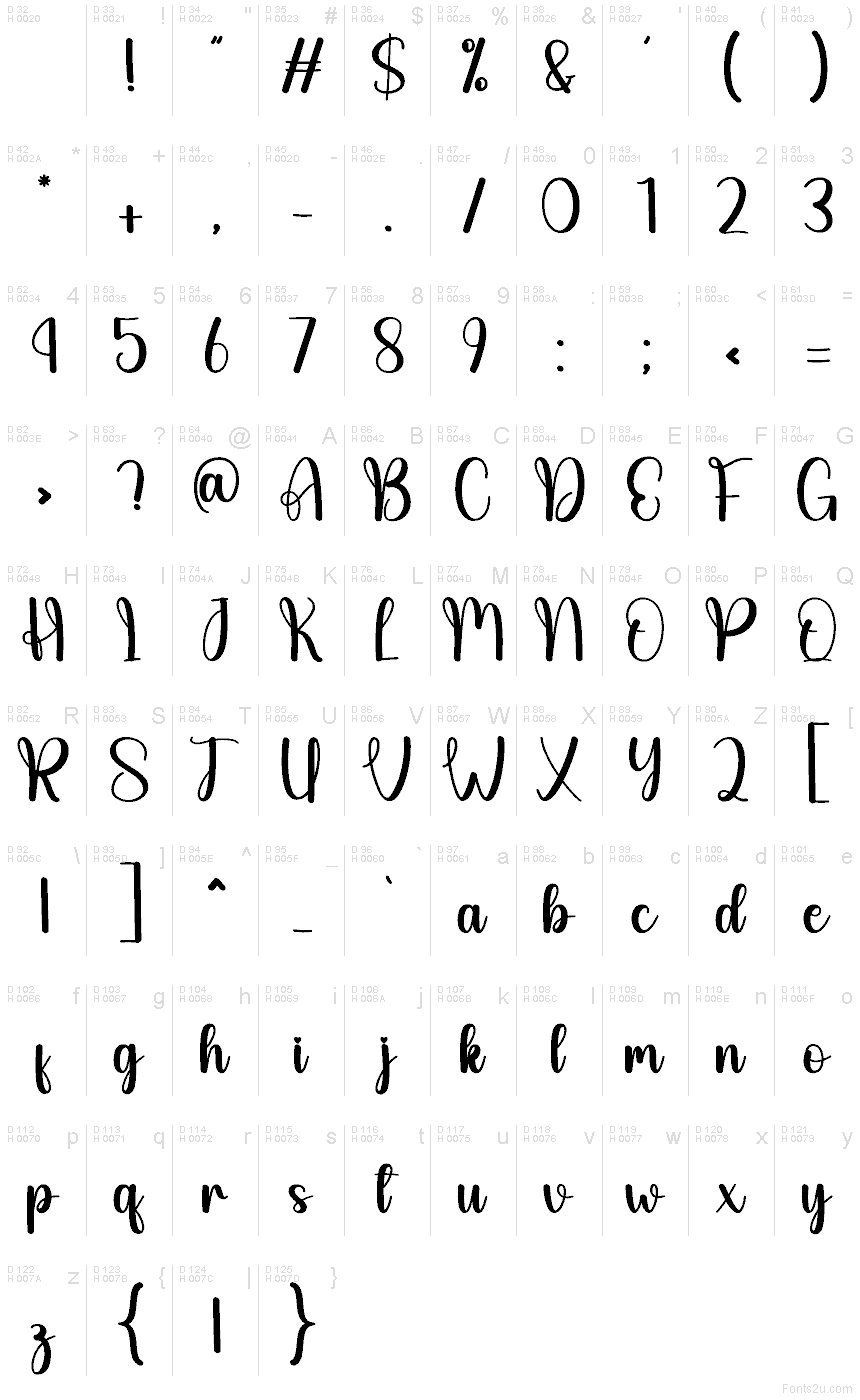
The Haunting
The Haunting font by Scratchones is a free handwritten font with a flowing script style full of classic charm. Its elegant and expressive flair presents a vintage-inspired overall look which can be noticed from the slightly slanted characters along the long strokes.
Integrate this beautiful work into various delicate projects such as wedding invitations, greeting cards, apparel designs, cosmetics labels, posters and other print designs.